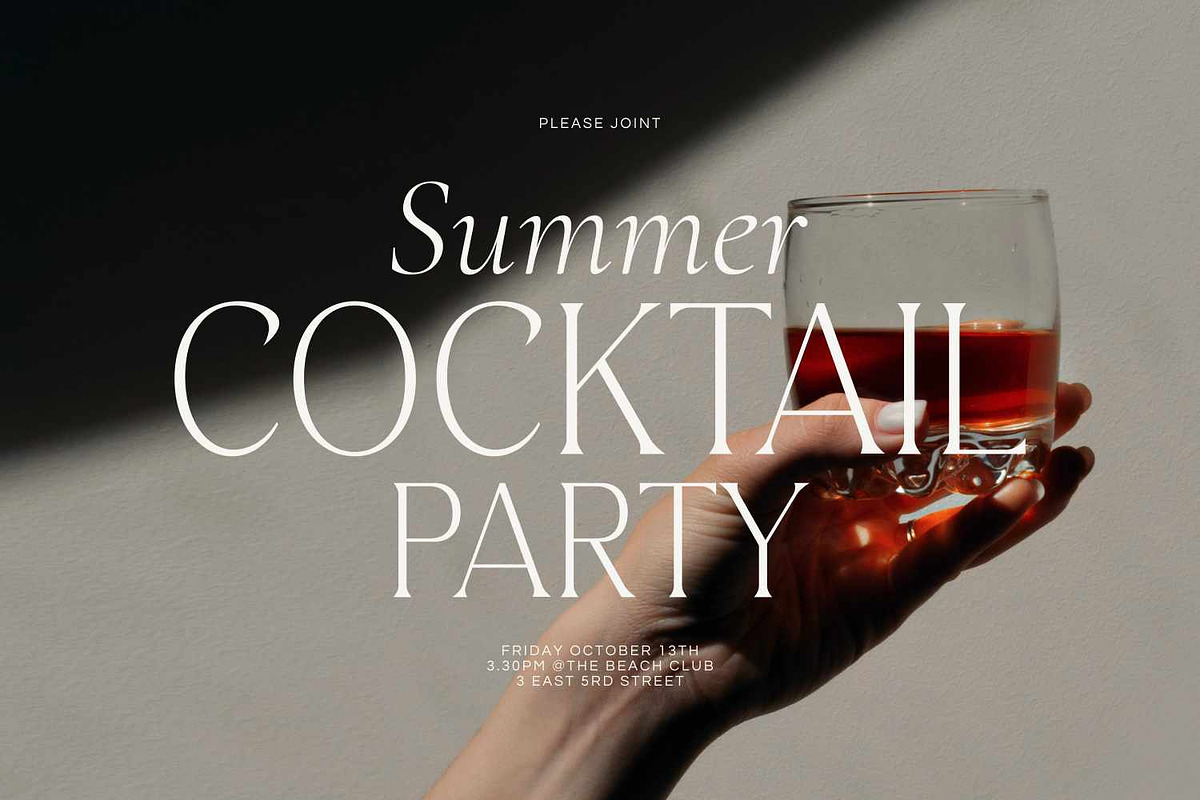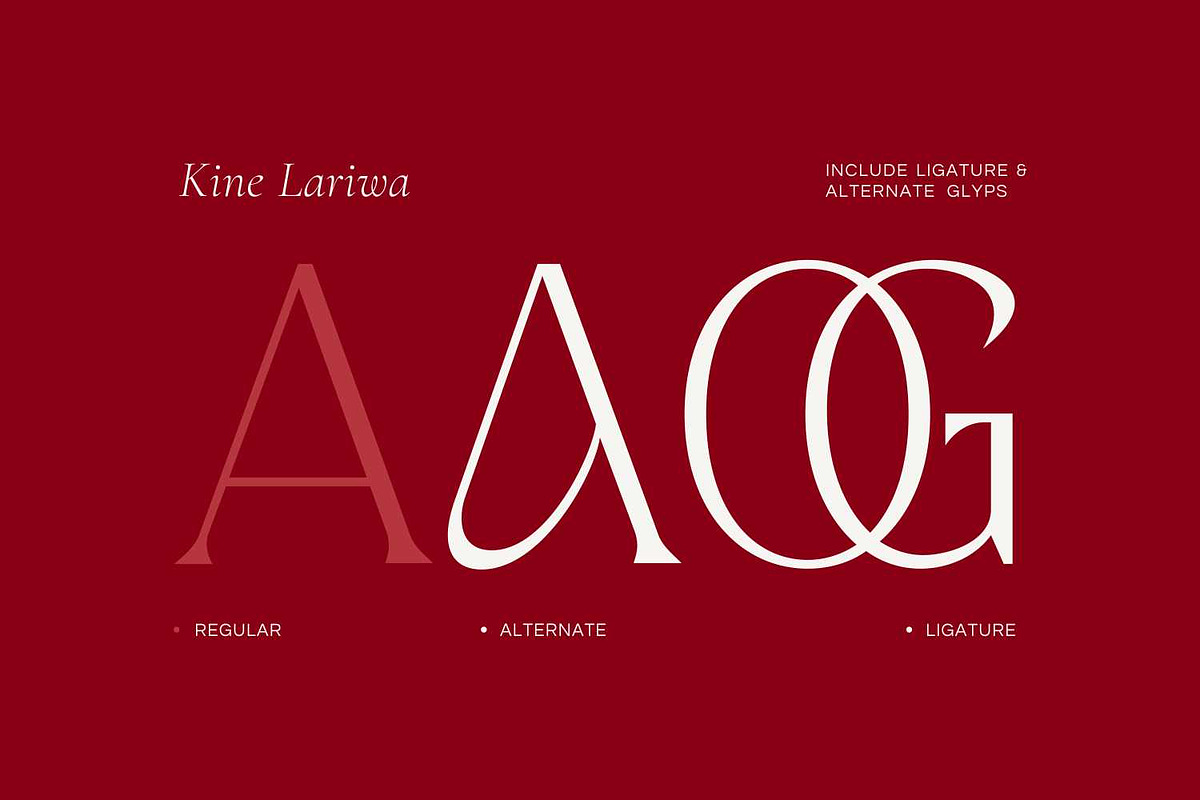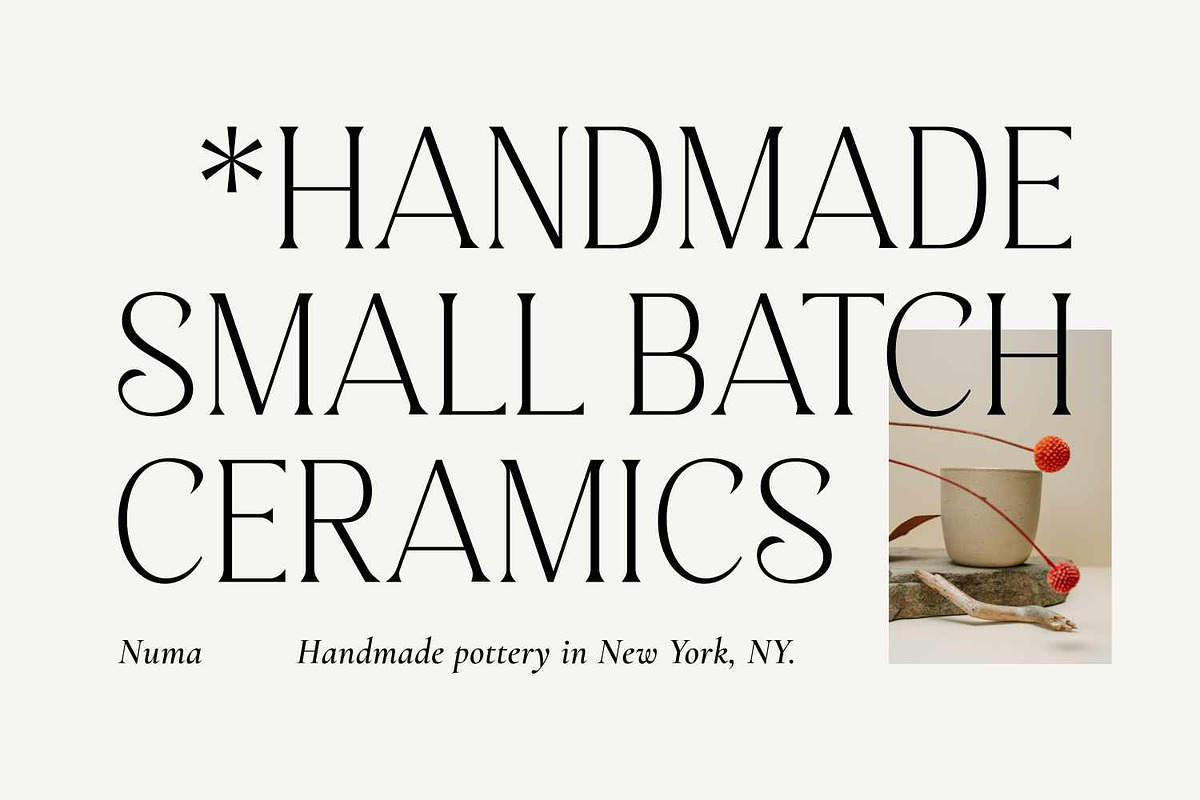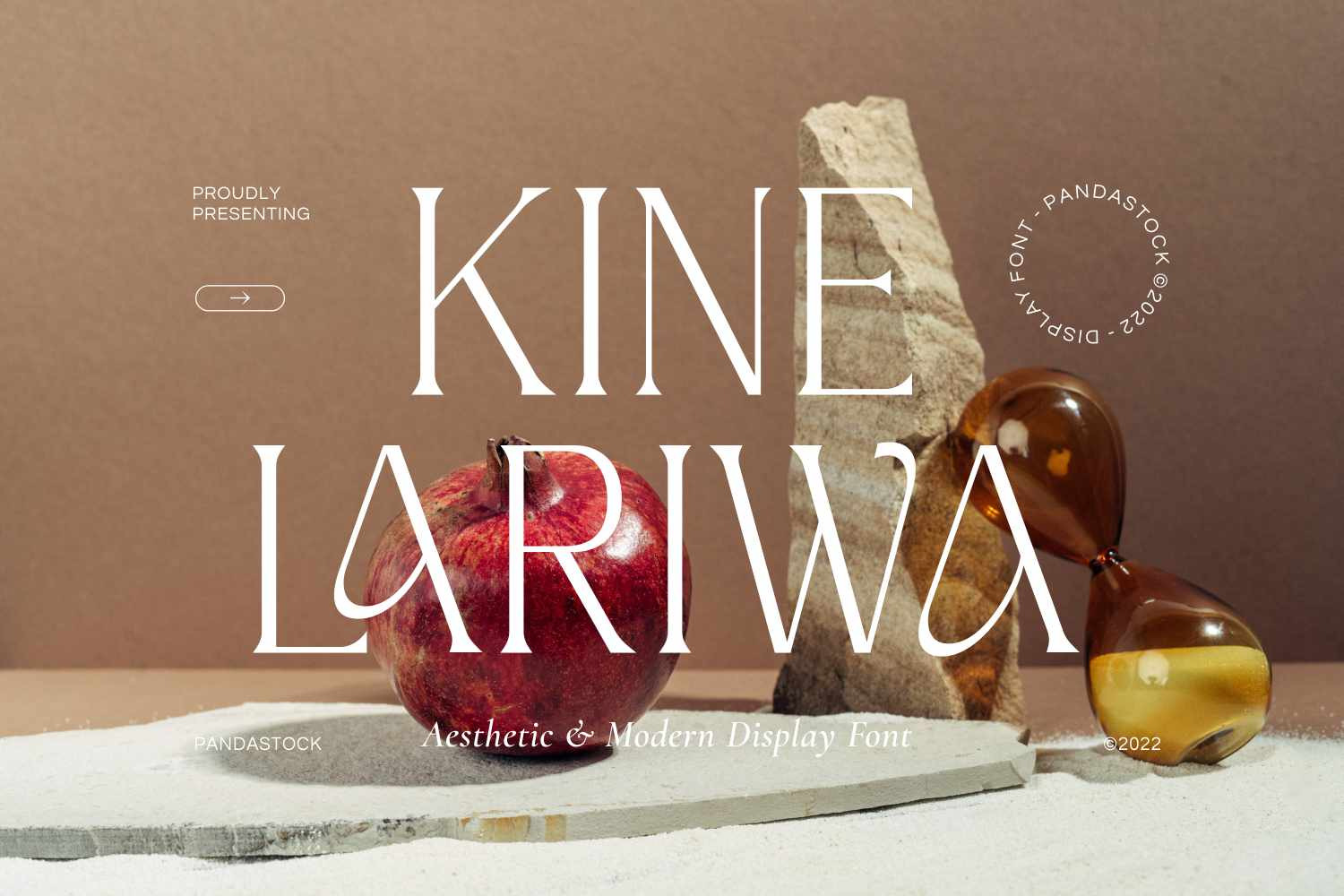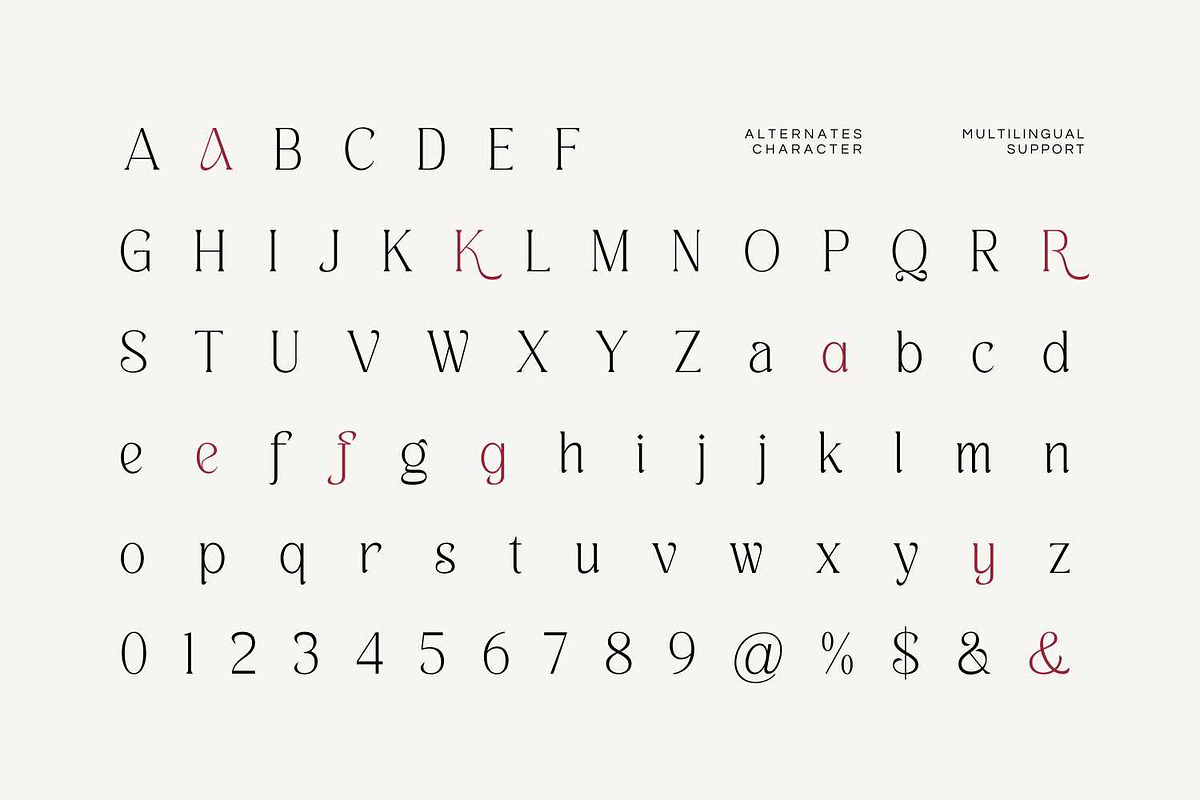
Kine Lariwa - Sophisticated Font
Meet Kine Lariwa, a stunning and sophisticated display serif font that exudes elegance and modernity. Designed with a high contrast aesthetic, Kine Lariwa brings a touch of luxury and refinement to any project. Its graceful letterforms are characterized by sharp, delicate serifs and a beautiful tension between thick and thin strokes, creating a captivating and memorable visual rhythm.
Perfect for high end branding, editorial design, and impactful headlines, Kine Lariwa shines in logos, magazine layouts, fashion labels, lifestyle brands, wedding invitations, and upscale packaging.
Whether used for bold headlines, refined editorial spreads, or boutique brand identities, Kine Lariwa brings an air of luxury and modern artistry to every project.
- Uppercase and Lowecase Characters.
- PUA Encoded Characters.
- Numerals and Punctuations.
- Alternates and Ligatures.
- Multilingual Support.